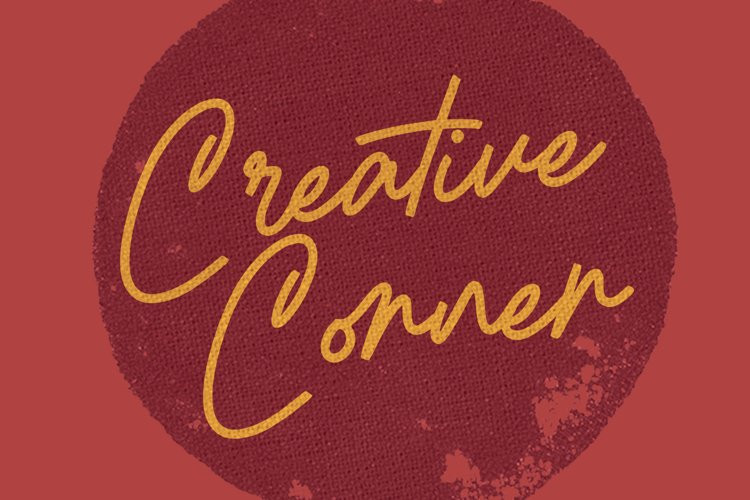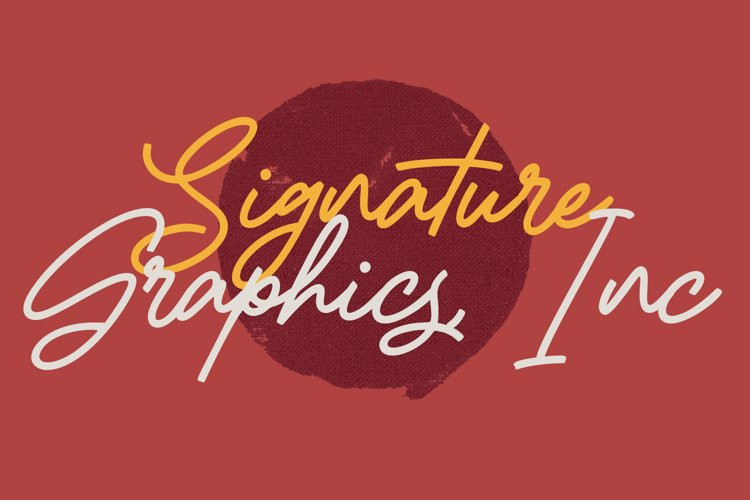
Ritchey Kish Font
Ritchey Kish FontRitchey Kish is a fancy handwritten script font. With medium consist stroke, fun character with a bit of ligatures and alternates. To give you an extra creative work. Ritchey Kish font support multilingual more than 100+ language. This font is good for logo design, Social media, Movie Titles, Books Titles, a short text even a long text letter and good for your secondary text font with sans or serif. Make a stunning work with Ritchey Kish font.